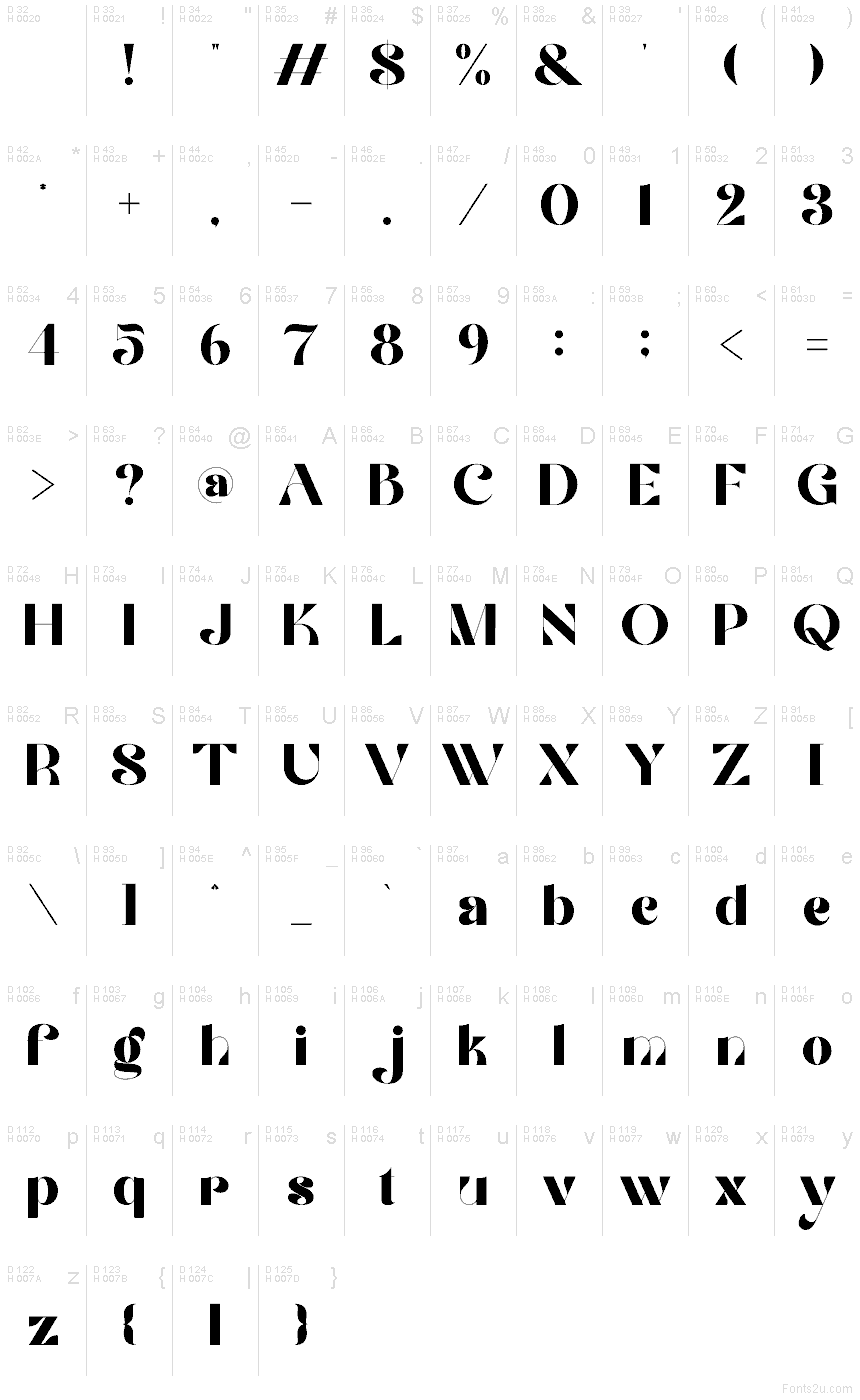
Bozzava
Bozzava font by Ermedia Studio is a free retro display font. It’s built around bold, inky slabs that are sliced by razor-thin cutaways, creating a dramatic push–pull of light and shadow. Those sculpted counters give each word a glamorous, 60s/70s fashion-magazine snap—lush, high-contrast forms that feel both couture and a touch rebellious.
Using Bozzava, headlines lock up with real presence, while the carved shapes add rhythm to posters, boutique branding, packaging, album covers, editorial titles, and event signage. This free font shines at large sizes with a bit of extra tracking. Pair it with a quiet, plain grotesk for body copy to let Bozzava’s statement shapes take the spotlight.